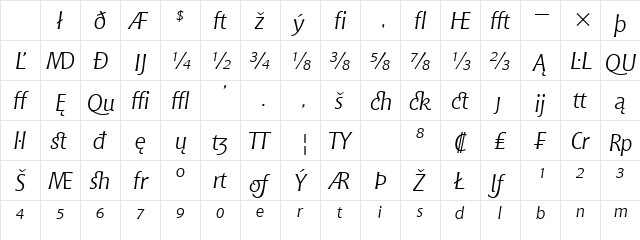
Complete Chianti ItExt BT Italic Extension glyph index. Displaying only characters natively supported by Chianti ItExt BT Italic Extension font.
Chianti ItExt BT is a composed and adaptable typeface that performs quietly and consistently across a wide range of design contexts. The slanted form adds forward momentum and visual energy.